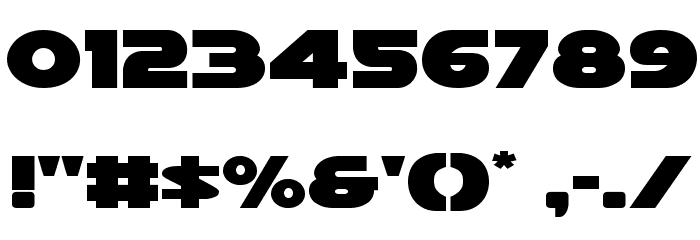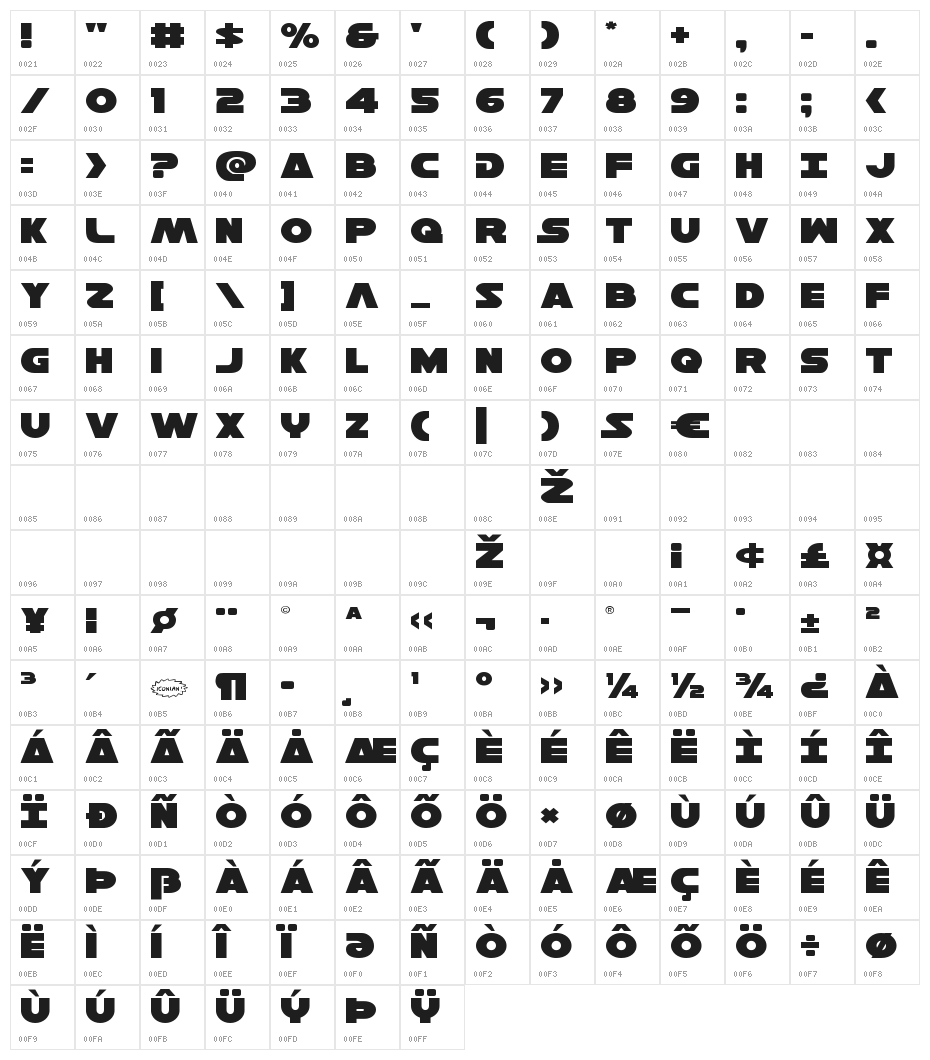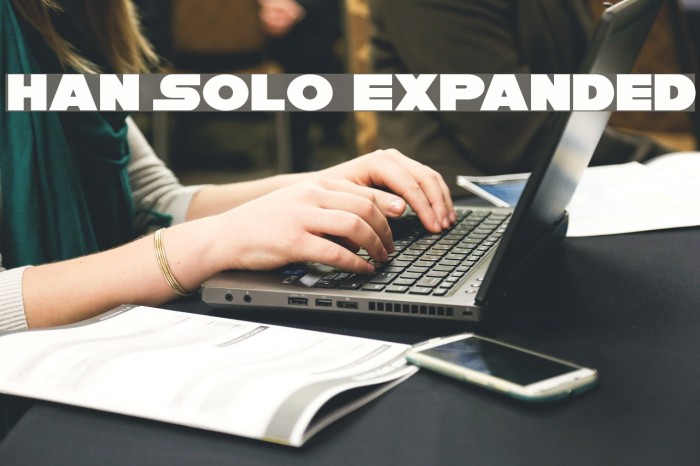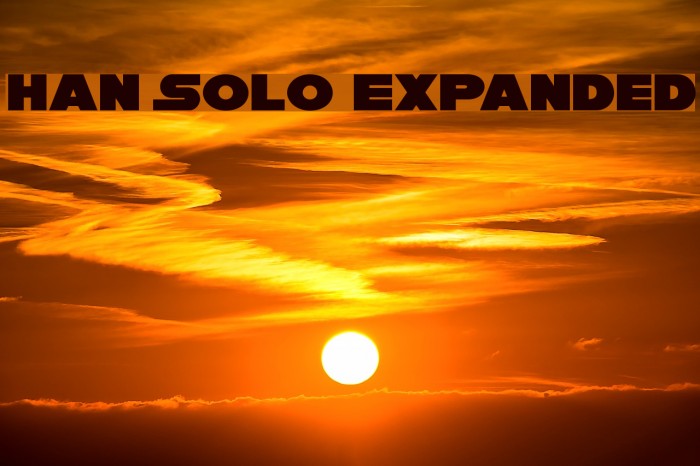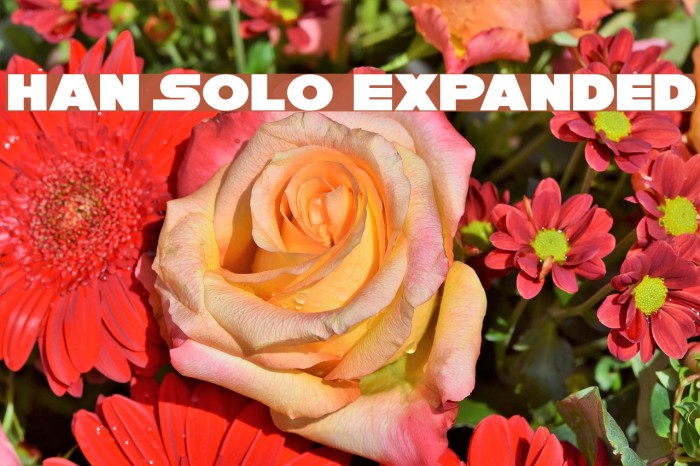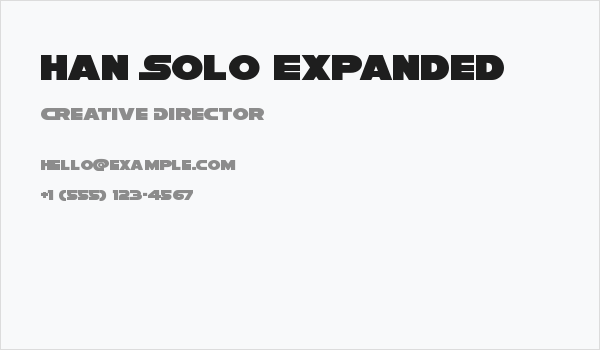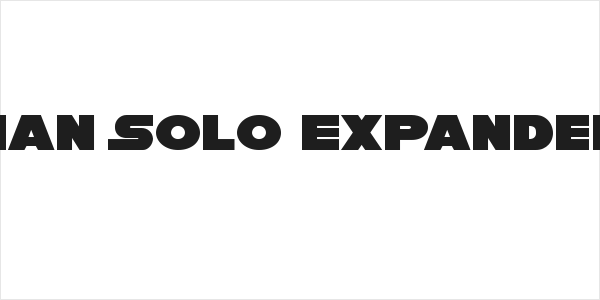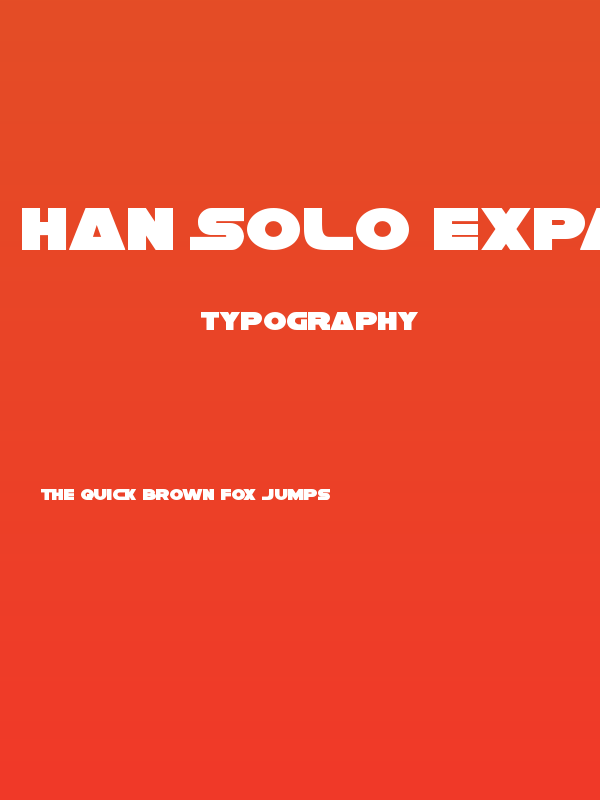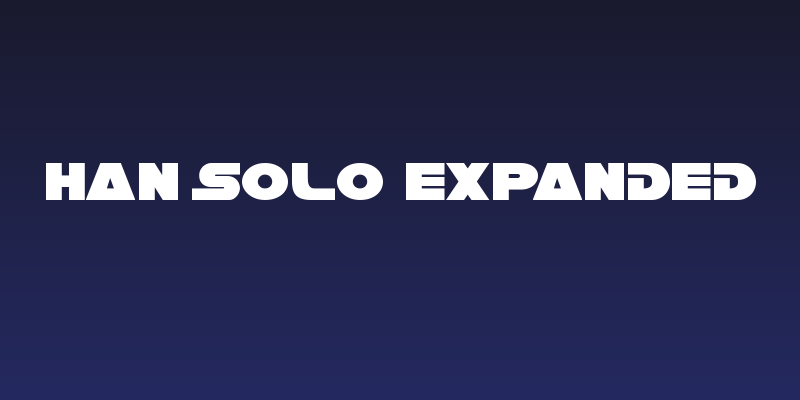
Han Solo Expanded Font
Han Solo Expanded Description
This font features a bold and futuristic design with strong geometric shapes and a distinct sci-fi aesthetic. The characters are wide and blocky, with a consistent thickness throughout, giving it a powerful and commanding presence. The uppercase letters are particularly striking, with unique cuts and angles that add a sense of movement and dynamism. The numbers and special characters maintain the same bold style, ensuring a cohesive look across all text. This font is ideal for projects that require a modern and impactful visual statement.
Overall StyleFuturistic
Proposed ProjectsPerfect for movie posters, video game covers, sci-fi book titles, and branding for tech companies.